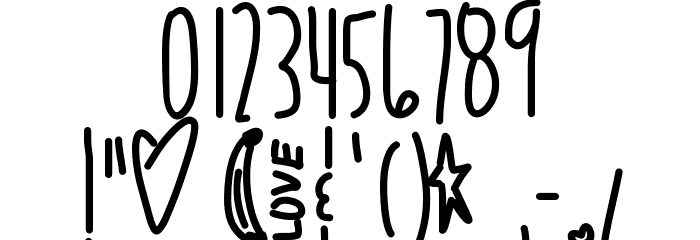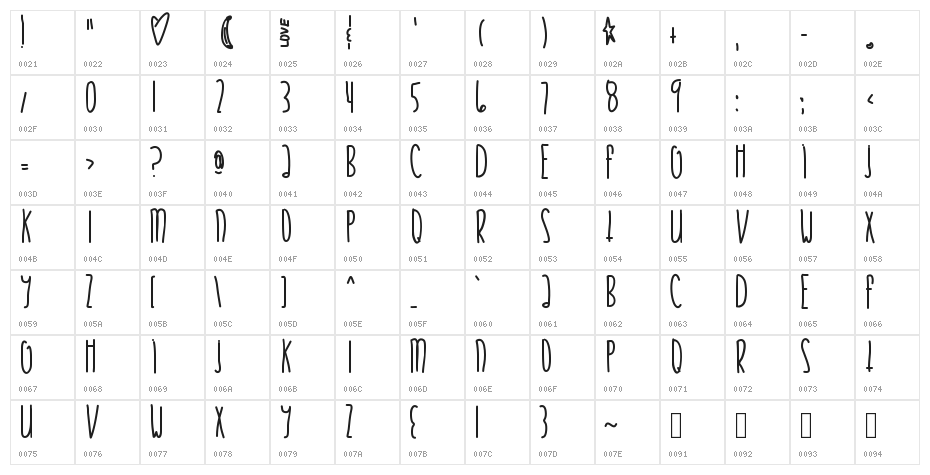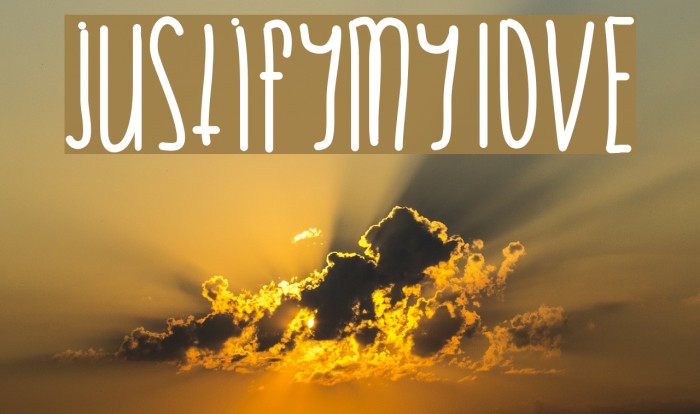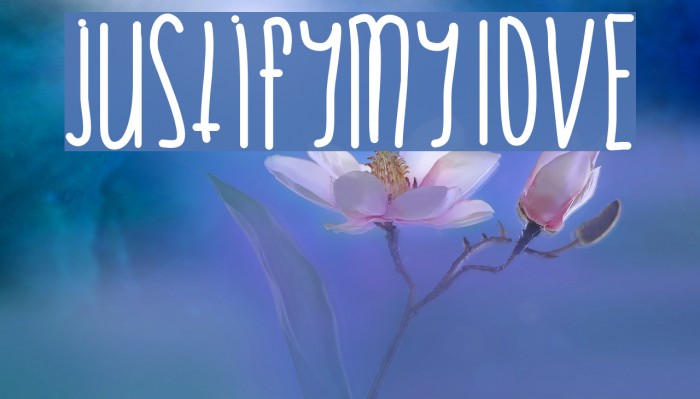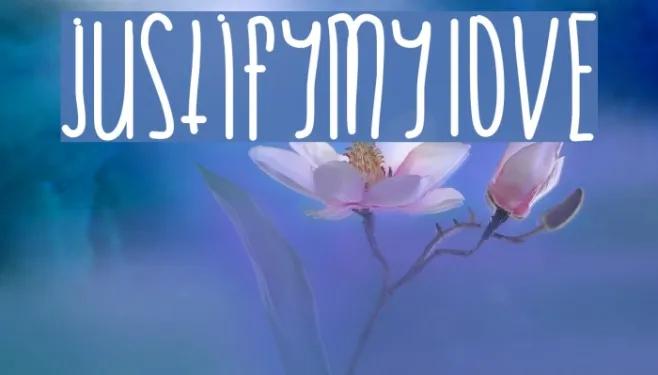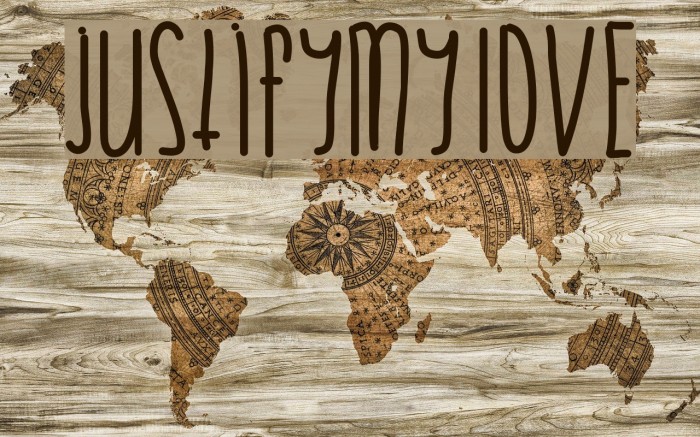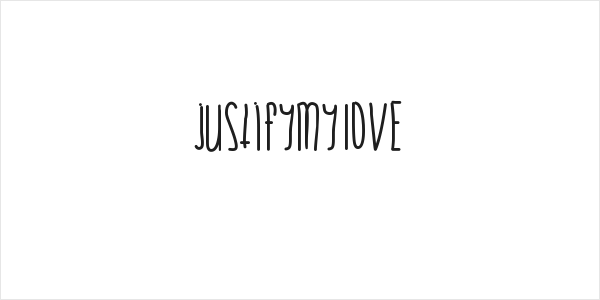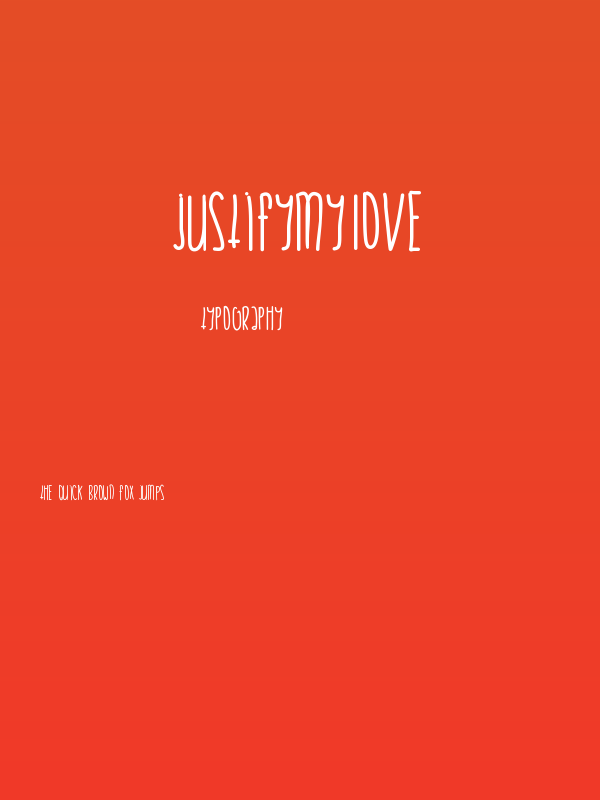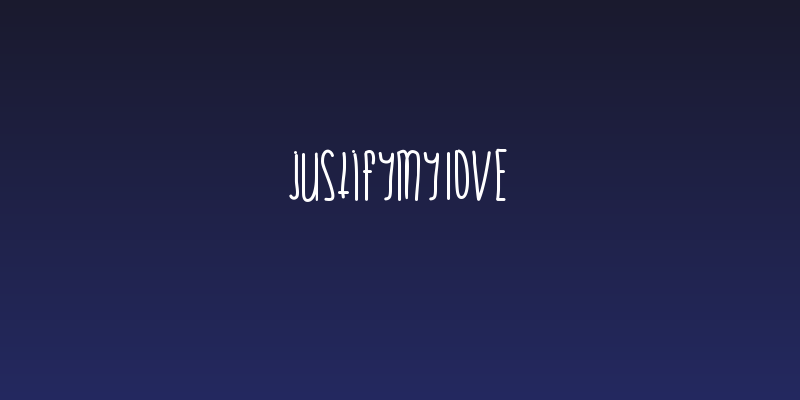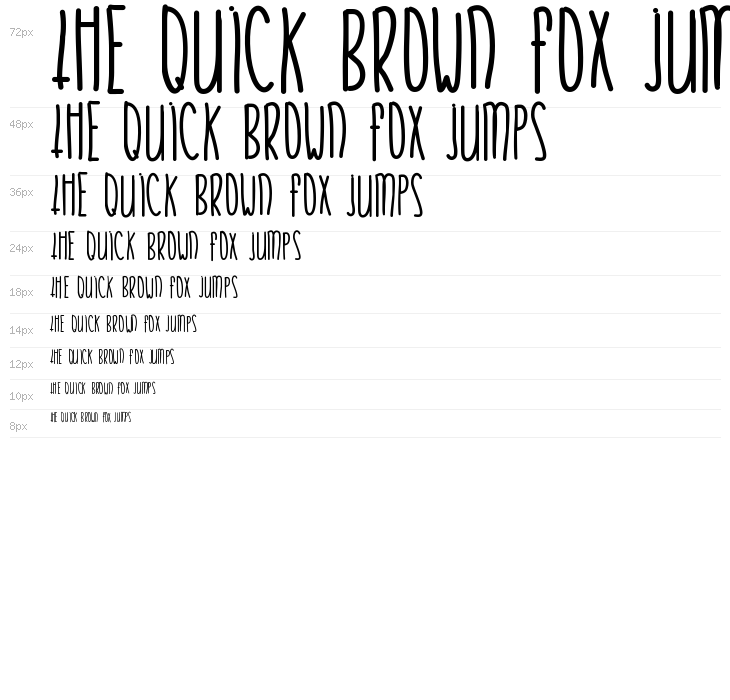
JustifyMyLove Font
JustifyMyLove Description
This font features a playful and whimsical style with elongated, narrow characters that exhibit a hand-drawn quality. The uppercase and lowercase letters maintain a consistent height, creating a uniform appearance. The strokes are smooth and slightly irregular, adding to the casual and informal feel. The numbers follow the same style, ensuring coherence across all characters. Special characters, including symbols like hearts and stars, are creatively integrated, enhancing the font's decorative appeal. This font is ideal for projects that require a touch of fun and creativity, such as greeting cards, children's books, or playful branding.